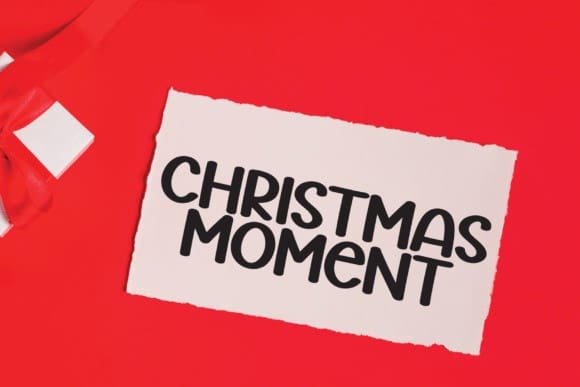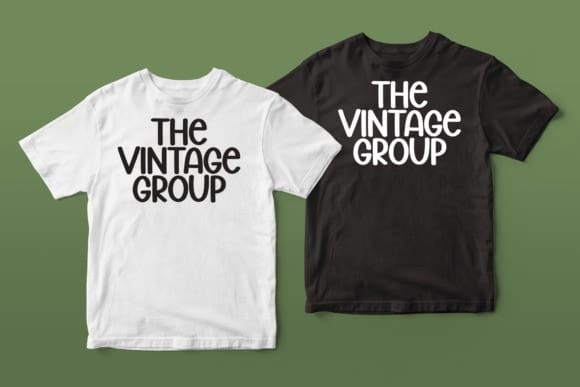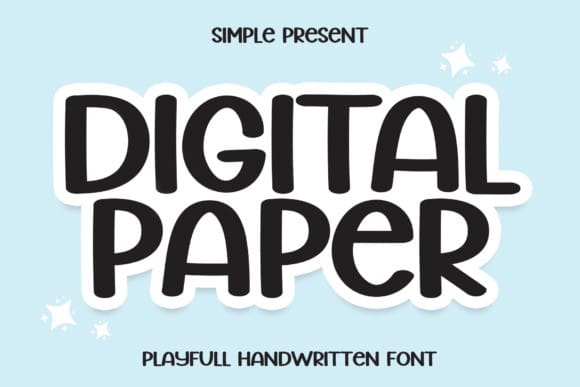
Digital Paper Font
Digital Paper Font is a clean, relaxed, and friendly handwritten font. Suitable for a wide variety of designs due to its neat and simple style, this font has the potential to become your favorite go-to font, no matter the occasion!